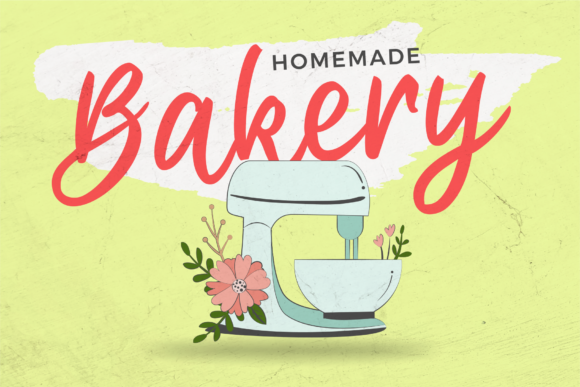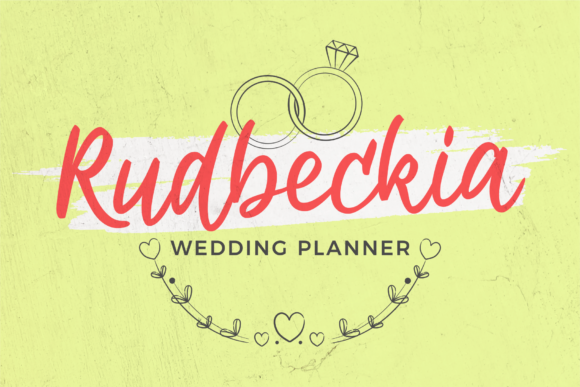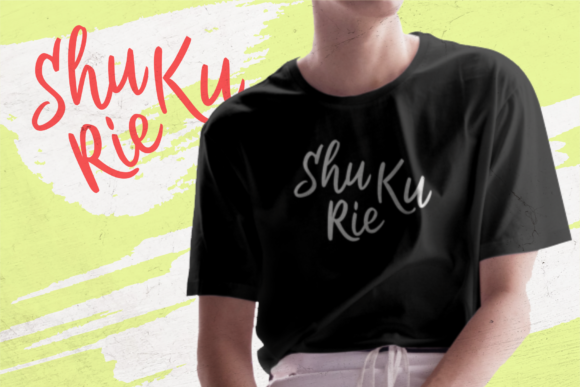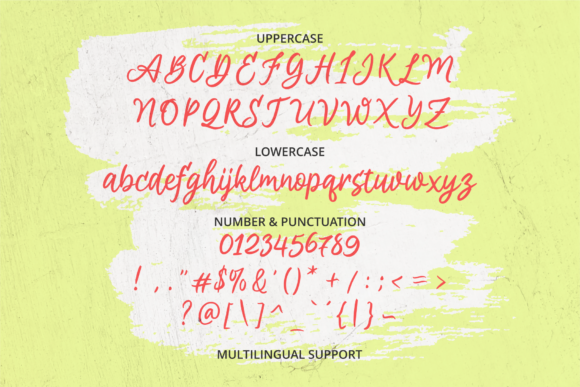
About Aremoin Font
Aremoin is a modern handwriting font. It will add a fabulous and authentic touch to your projects. It’s perfect for social media branding projects, fashion designs, printed quotes, packaging, or even as a stylish text overlay to any background image.